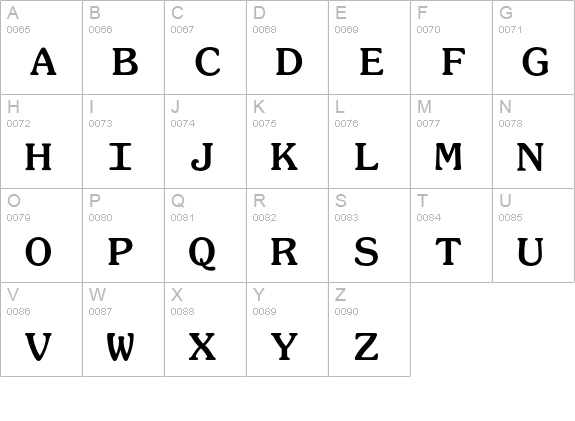
SouvenirMonoEF-Bold Font Details
SouvenirMonoEF-Bold is a strong, high-contrast variant in the SouvenirMonoEF typeface family \xE2\x80\x94 well suited to headlines, attention-grabbing titles, and strong calls-to-action.
SouvenirMonoEF-Bold is a bold and powerful font that commands attention with its striking presence. It exudes confidence and strength, making it perfect for headlines, titles, and any design that requires a bold statement. The clean lines and sharp edges of this font add a modern touch, while still maintaining a sense of elegance and sophistication. With its bold weight, SouvenirMonoEF-Bold stands out effortlessly, ensuring that your message is delivered with impact. Whether you're designing a logo, creating a poster, or working on a branding project, this font will make a lasting impression. What makes SouvenirMonoEF-Bold even more appealing is that it is freely available to download at FontsMarket.com. This means that you can enjoy the benefits of this exceptional font without any cost. It's a fantastic opportunity to enhance your designs with a high-quality font that won't put a dent in your budget. Don't miss out on the chance to elevate your designs with SouvenirMonoEF-Bold. Download it today for free at FontsMarket.com and experience the boldness and versatility of this remarkable font.